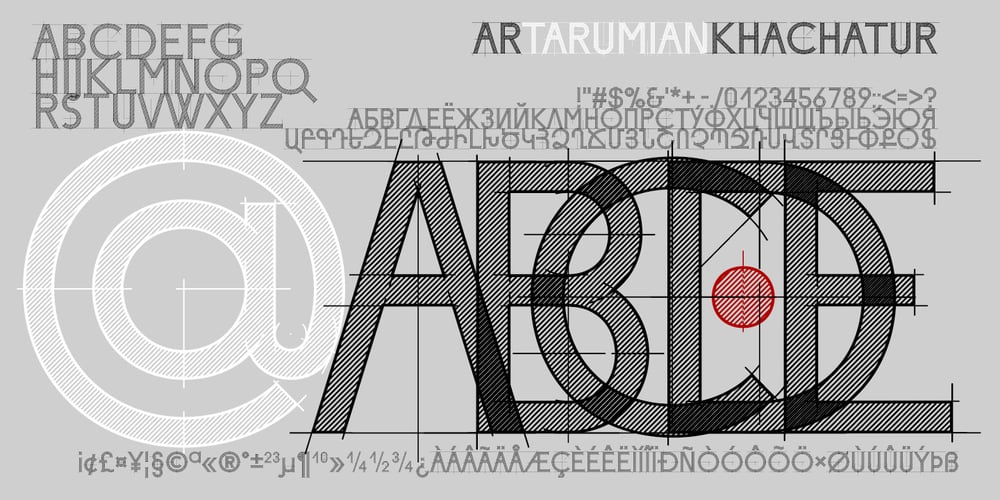
ArTarumianKhachatur
ArTarumianKhachatur font
ArTarumianKhachatur Font Family was designed by Ruben Hakobyan (Tarumian) and published by Tarumian. ArTarumianKhachatur contains 2 styles and family package options. This is a font imitating the stage of outline construction of letters using drawing tools – compass and ruler. It is very geometric (with auxiliary lines, axes, centers of circles, tangents, and conjugation of circles), although the circles are somewhat compressed from four sides. The second style, which plays the role of Bold style, is a hatched version of the Regular style. The font has very small elements that appear in a sufficiently large size, so it is better to use it for large compositions, in particular, advertisements, posters, large headings, etc. The family is named “Khachatur” after the name of the father of designer Ruben Tarumian — architect Khachatur Hakobyan, his first master.